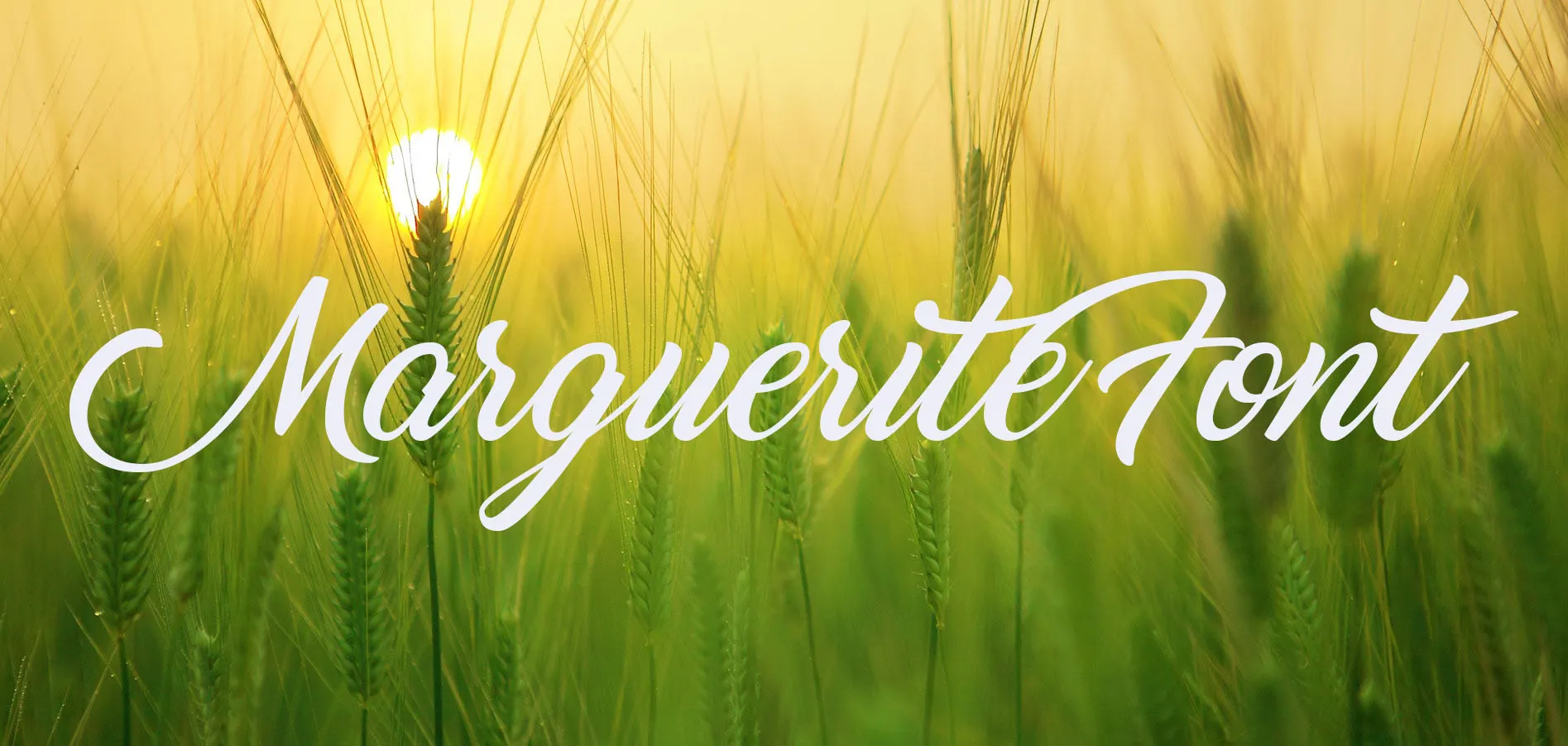
Marguerite Font Family is a very soft and fresh script typeface that was designed by Stereo-Type foundry. It was originally designed by a notable designer named Clement Nicolle.
This font family has come with soft curves and natural connexions. This font has available in one regular weight with TrueType features. Simplifica Font, Tannenberg Fett Font, Dallas Cowboys Font are the most similar fonts to this typeface.